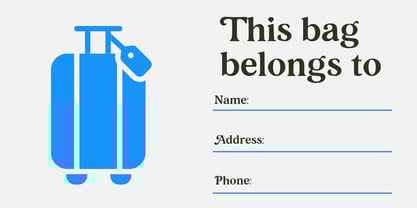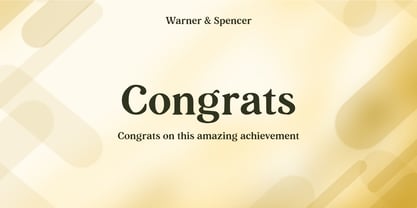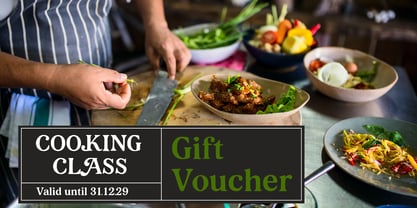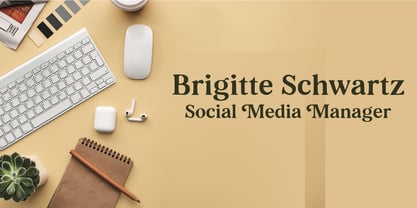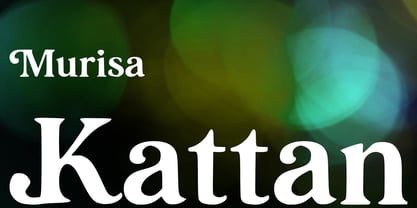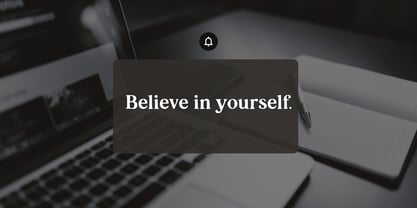
Murisa Kattan
by Murisa Studio
The Murisa Kattan Font Family was designed by Lili Sadili and published by Murisa Studio. Murisa Kattan contains 1 styles. More about this family
Murisa Kattan — A Typeface That Commands Attention
Step into a world where tradition meets bold sophistication. Murisa Kattan is not just a font—it’s a statement. Designed with meticulous precision and artistic flair, this serif masterpiece evokes the timeless elegance of classic typography while embracing the expressive edge of modern design.
🖋️ Refined Yet Rebellious Every stroke in Murisa Kattan carries intention. From its sculpted serifs to the graceful contrast in line weight, this font balances authority with artistry—perfect for brands, publications, and creators who refuse to blend in.
🌍 Multilingual Powerhouse Crafted with global reach in mind, Murisa Kattan supports Eastern European languages with seamless fluency. Whether you're designing for Prague, Budapest, or beyond, your message will resonate with clarity and style.
💎 Designed to Impress Murisa Kattan thrives in high-impact environments:
• Luxury packaging
• Editorial headlines
• Fashion campaigns
• Cultural institutions Its versatility makes it ideal for both digital and print, while its character ensures your work stands apart.
🔥 Why settle for ordinary? Murisa Kattan was born to elevate. It’s the kind of font that turns a simple word into a visual experience—one that lingers in the mind and leaves a lasting impression